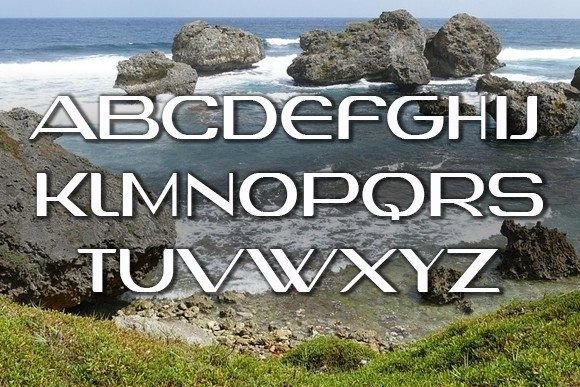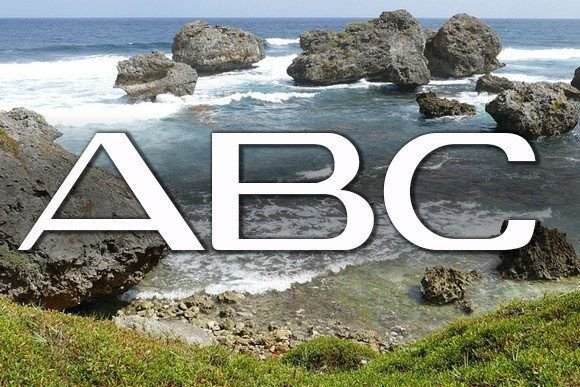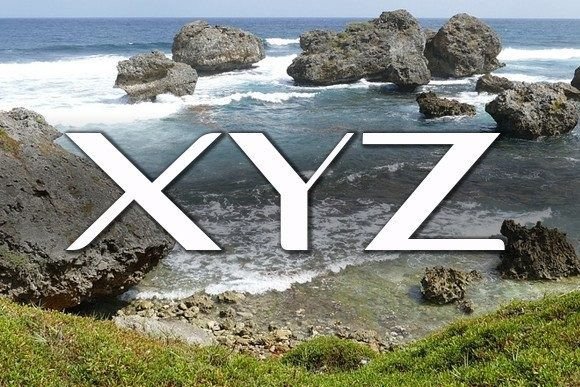
Grenada Font: Elevate Your Designs with a Stylish Sans Serif
Are you on the hunt for a font that can instantly elevate your designs and make them stand out? Look no further than the Grenada Font! This stylish sans serif font is perfect for a wide range of design projects, from posters and flyers to logos, brochures, and more. With its clean lines, modern aesthetic, and versatility, Grenada is sure to become a go-to in your fonts library.
As a designer or crafter, you’re always on the lookout for fonts that can help you create stunning visuals. Grenada Font is designed to help you achieve just that. Its sans serif design makes it easy to read and perfect for use in a variety of design projects. Whether you’re creating a poster for a concert, a flyer for a sale, or a logo for a new business, Grenada Font is the perfect choice.
Key Features of Grenada Font
- Stylish Sans Serif Design: Grenada Font features a modern sans serif design that is both clean and elegant.
- Versatile: This font is perfect for a wide range of design projects, from posters and flyers to logos and brochures.
- Easy to Read: The clean lines and simple design of Grenada Font make it easy to read, even at small sizes.
- High-Quality: Grenada Font is a high-quality font that is designed to help you create professional-looking designs.
Why Choose Grenada Font?
So, why should you choose Grenada Font for your design projects? Here are just a few reasons:
- Instantly Elevate Your Designs: With Grenada Font, you can instantly elevate your designs and make them stand out.
- Save Time: This font is easy to use and can save you time when working on design projects.
- Professional-Looking Designs: Grenada Font is designed to help you create professional-looking designs that will impress your clients.
- Add a Modern Touch: This font adds a modern touch to any design project, making it perfect for designers and crafters who want to create modern and stylish visuals.
Tips for Using Grenada Font
- Experiment with Different Sizes: Grenada Font looks great at a variety of sizes, so don’t be afraid to experiment.
- Pair it with Other Fonts: This font pairs well with other sans serif fonts, as well as script fonts.
- Use it for Headings and Titles: Grenada Font is perfect for use in headings and titles, where its modern aesthetic can really shine.